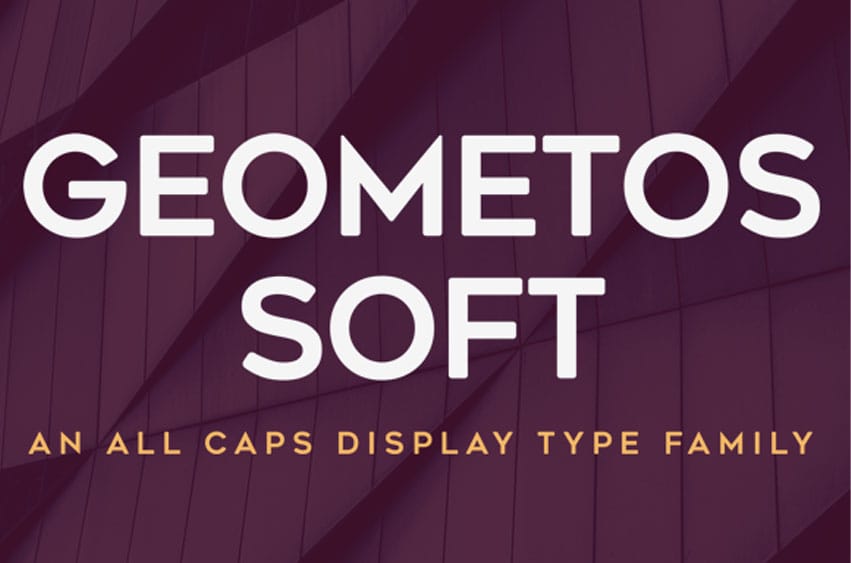
Geometos Soft Font is a new version of the Geometos typeface.
It’s a stunning sans serif font with strong bold letters, and this time they come with soft rounded edges.